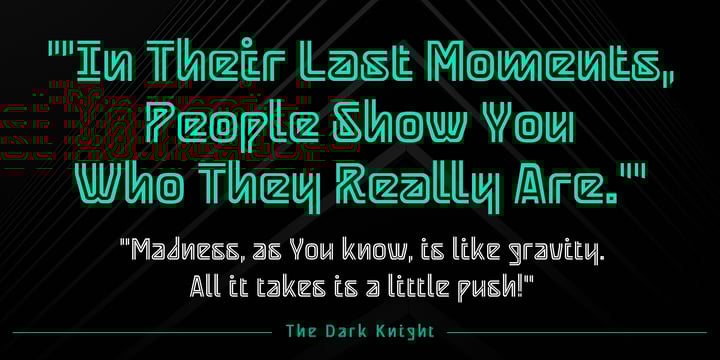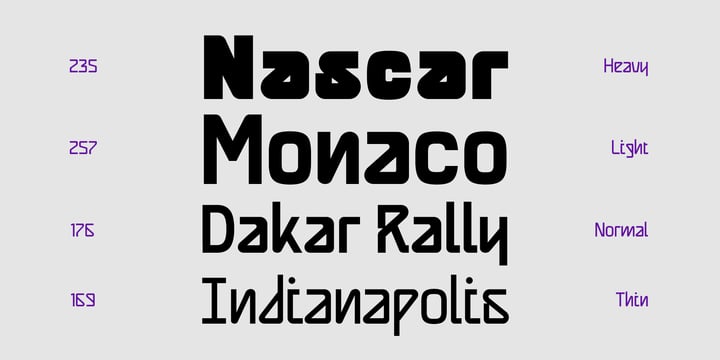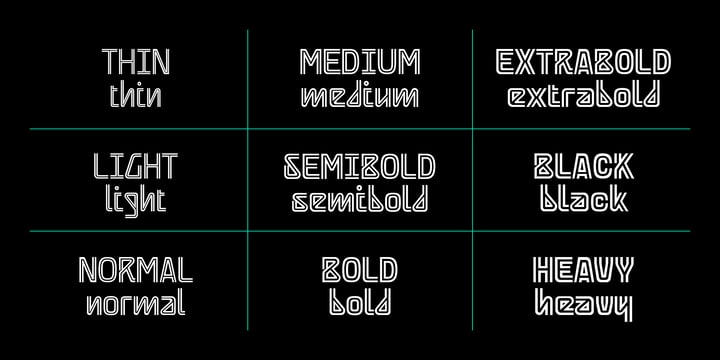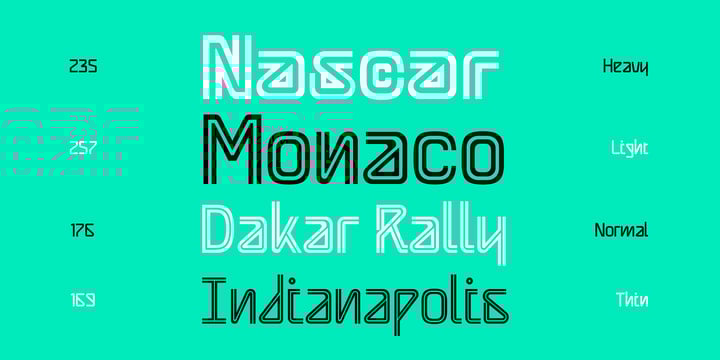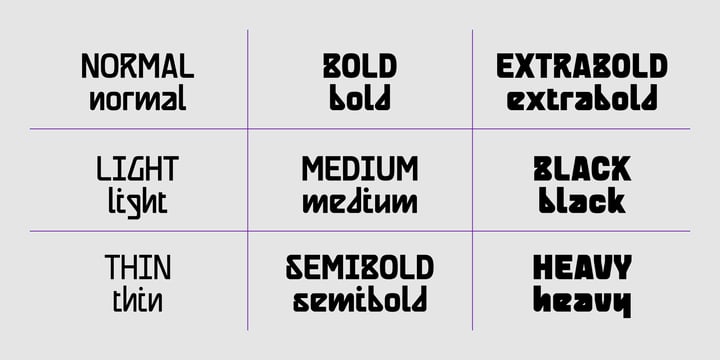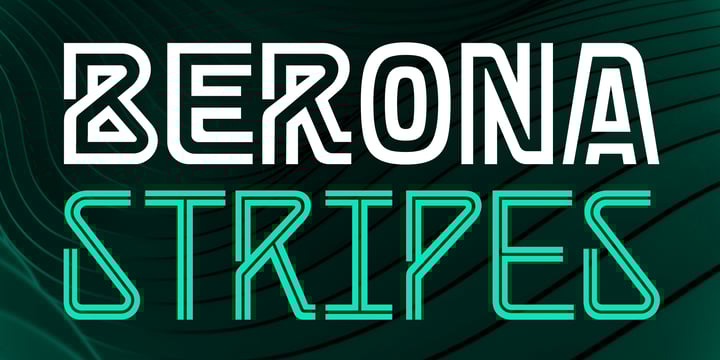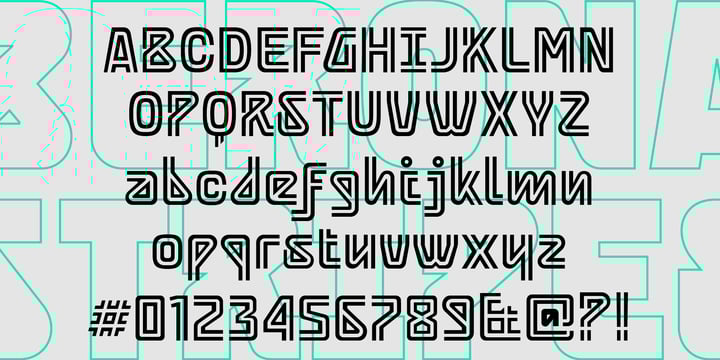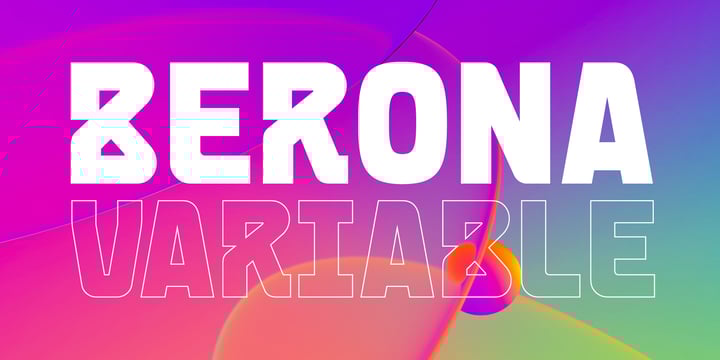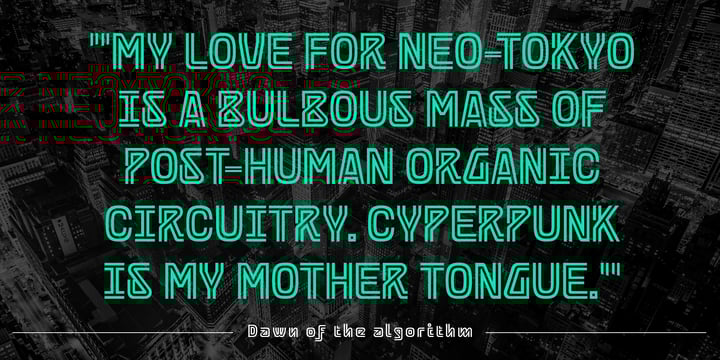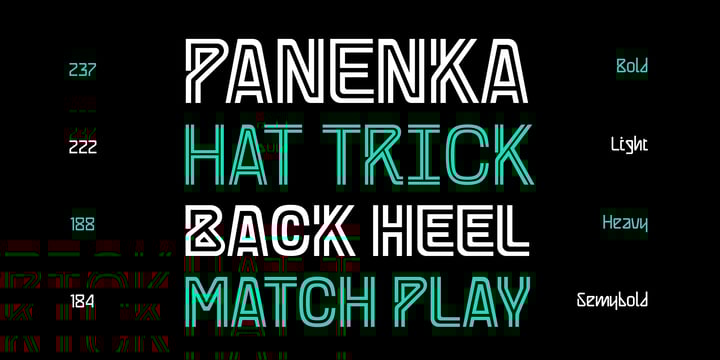
Berona Bundle Family
Berona Stripes and Berona are two geometric typefaces born from the same structural foundation, making them the perfect pairing in a single, versatile bundle. Berona Stripes brings a bold, linear character inspired by the solid Berona core, making it ideal for striking, modern display use at medium to large scales, while Berona offers a clean, solid counterpart with the same dynamic sharp edges and contemporary feel. Together, they create a cohesive visual system that allows designers to mix, contrast, and layer styles seamlessly, all while maintaining a unified aesthetic.